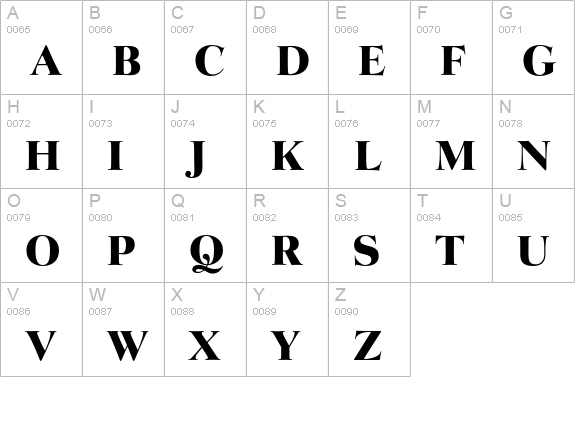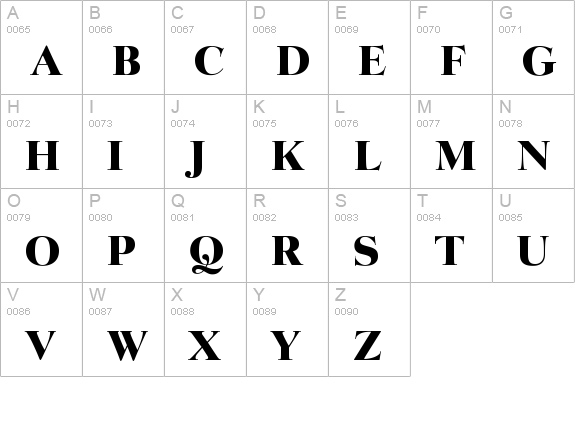
Belucian-Ultra Font Details
Belucian-Ultra is an extreme-weight, display variant in the Belucian typeface family \xE2\x80\x94 well suited to extreme display use where maximum visual weight is required.
Introducing Belucian-Ultra font, a stunning display typeface created to make a bold statement in any design project. With its sleek and modern design, Belucian-Ultra exudes elegance and sophistication, perfect for headlines, branding, posters, and more. This versatile font features clean lines and sharp angles that give it a contemporary edge while maintaining a sense of refinement. Belucian-Ultra is sure to grab the attention of your audience and elevate the visual impact of your work. And the best part? Belucian-Ultra is available for free download at FontsMarket.com, making it easily accessible for designers looking to add a touch of luxury to their projects without breaking the bank. Don't miss out on this exceptional font – download Belucian-Ultra today and take your designs to the next level!